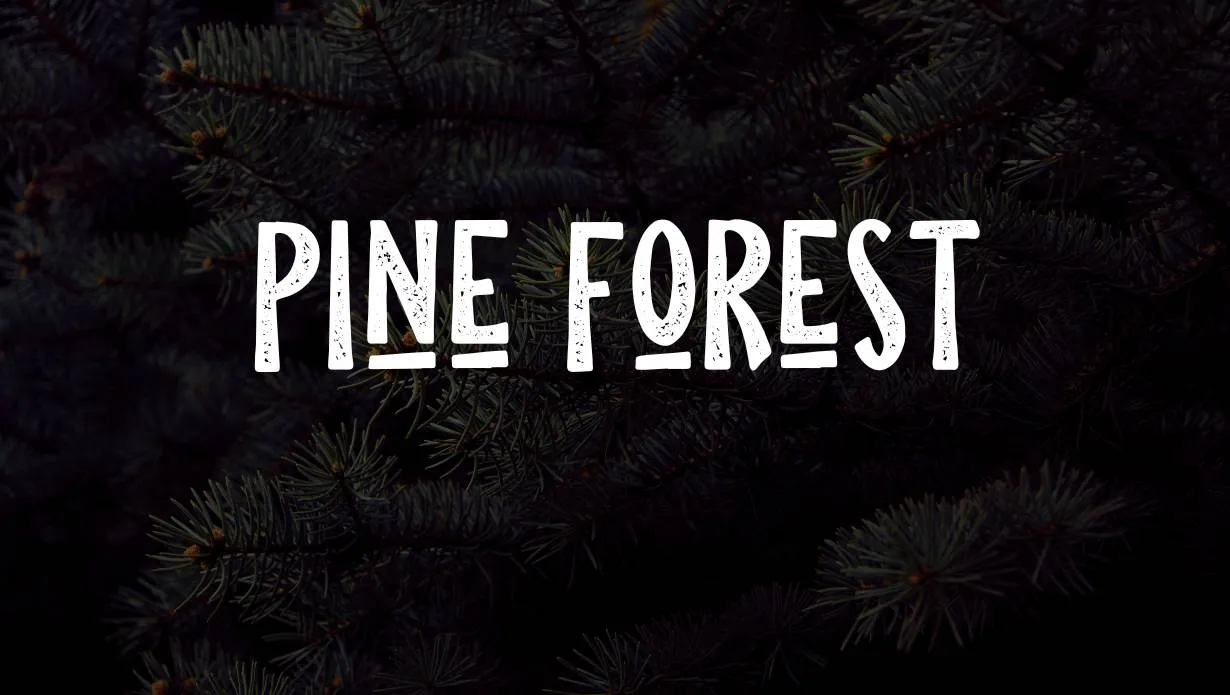
Pine Forest Font is inspired by nature and is often used in projects related to the great outdoors, national parks, and forest-themed designs.
It adds a touch of rustic charm and a sense of adventure to your design work. The coveted texture of this typeface makes it a favorite among creators.
Pine Forest Font Family